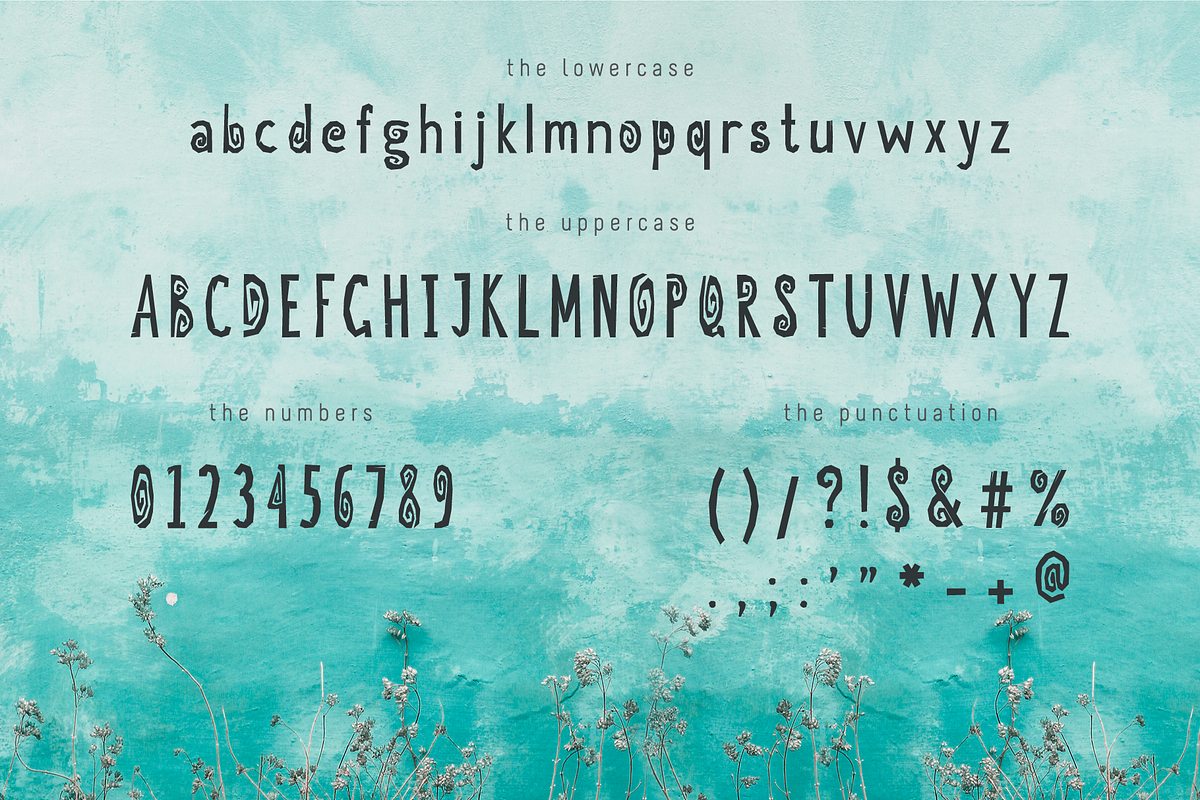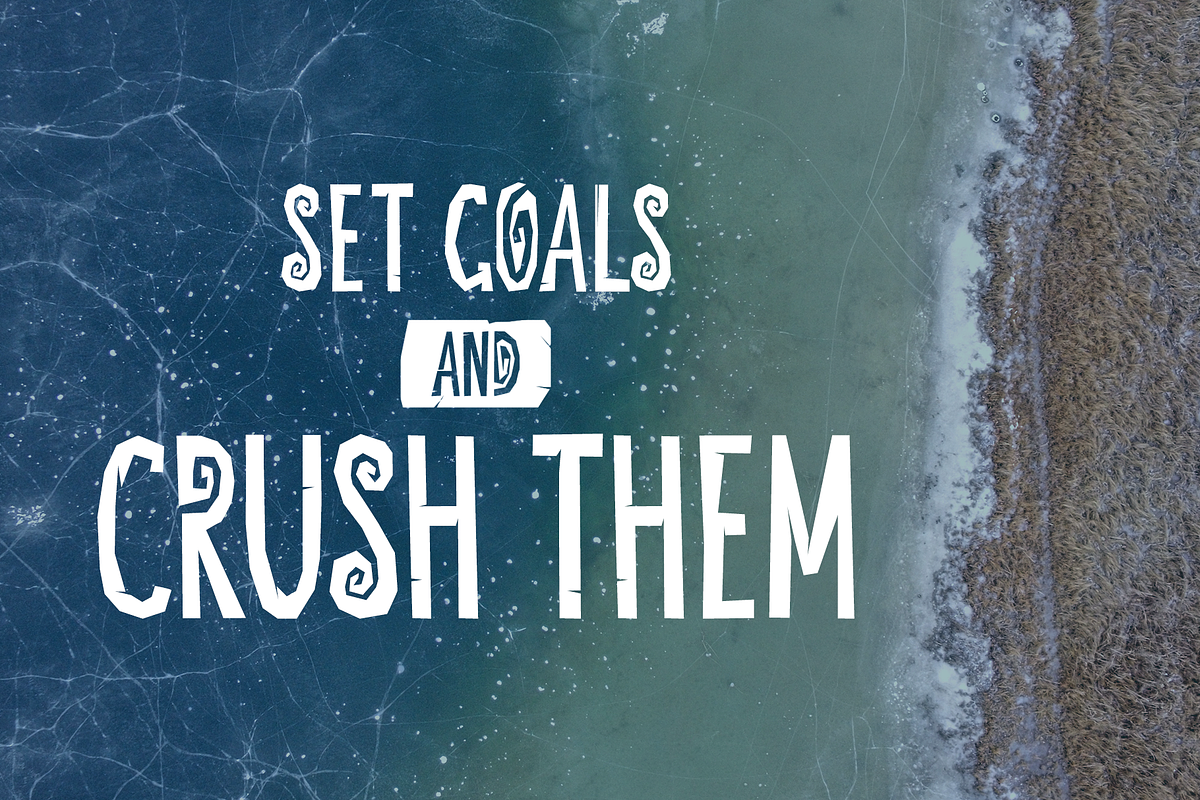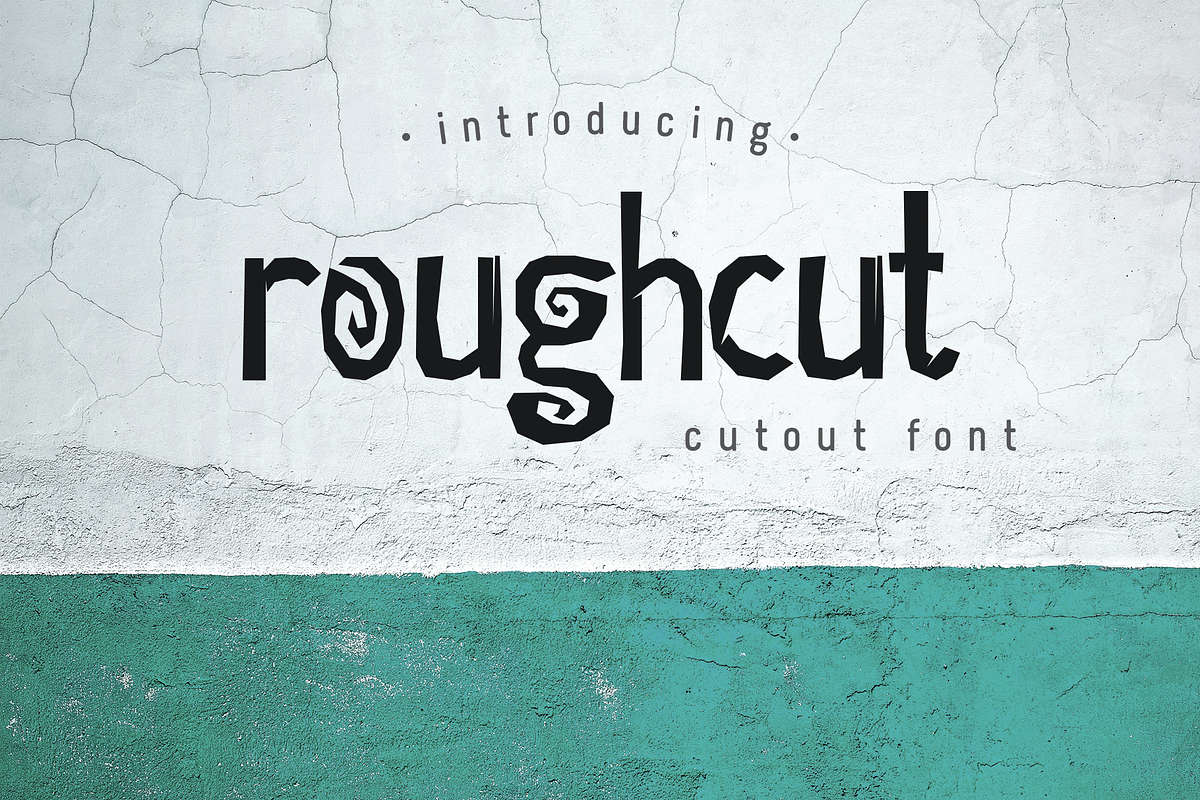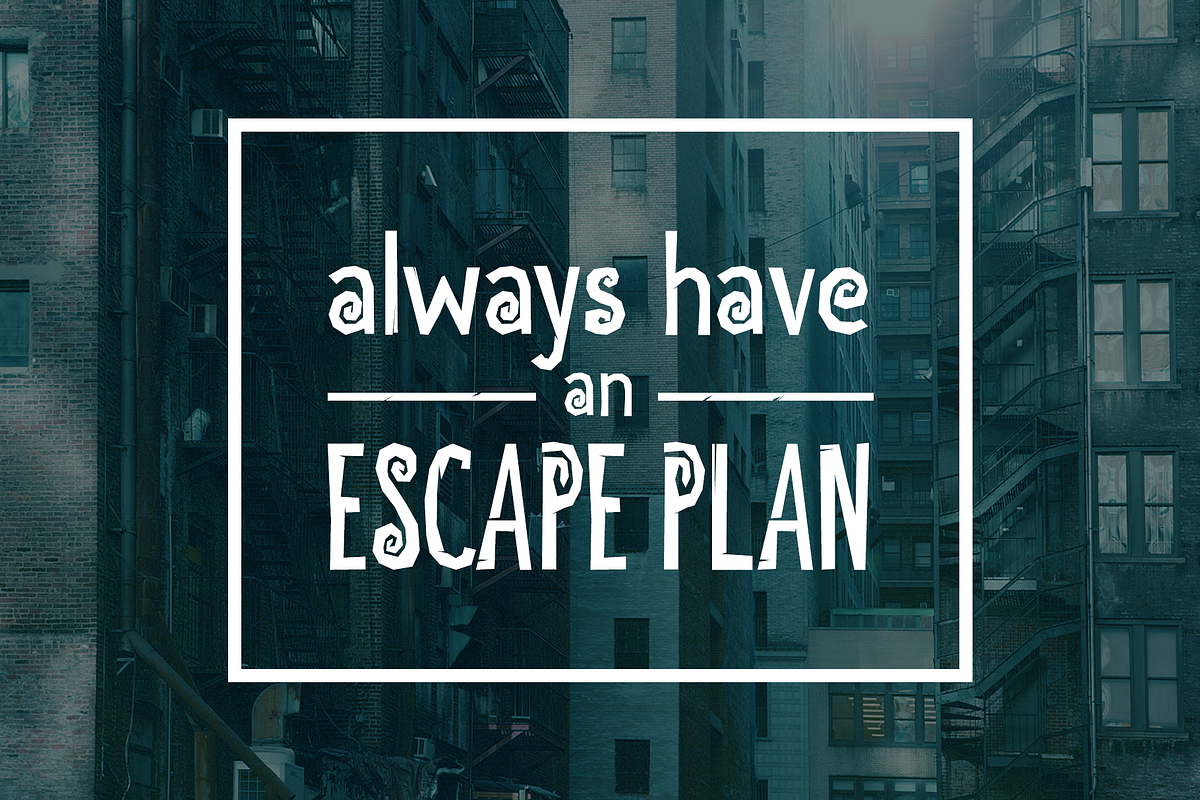
Roughcut font
Introducing Roughcut Regular font!
This font include uppercase, lowercase and numbers. Punctuation: ()/?!$&#%.,:;'"-+@
This font is well suited for posters, quotes, logos, labels, t-shirts, advertising, book and magazine covers.
Why Roughcut font is worth a look
Roughcut font by ekmelica fits naturally into Branding, posters, packaging, typography.